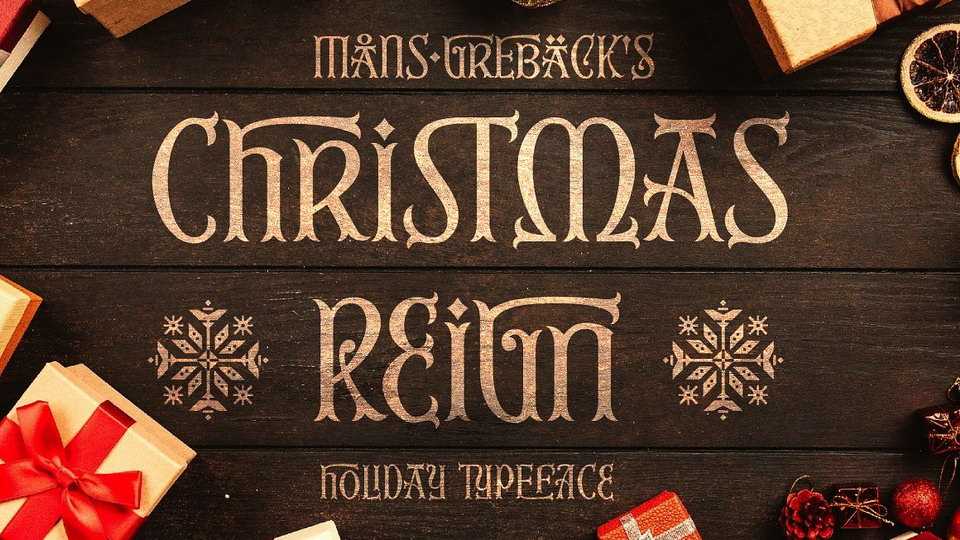
Download Christmas Reign font, a very decorative festive typeface. Each letter of Christmas Reign pair behaves differently, magically creating new ways to connect as the text goes on.
Designer: Måns Grebäck